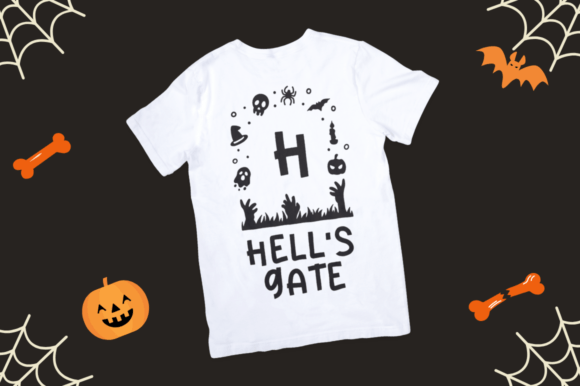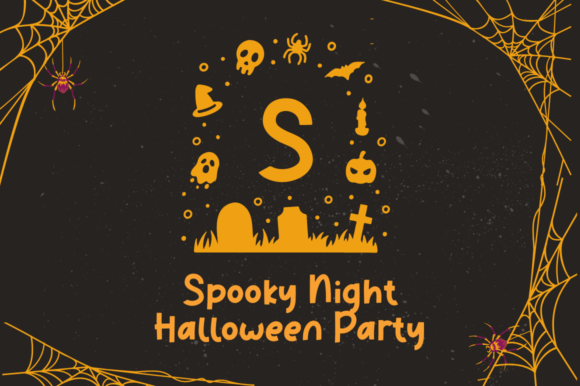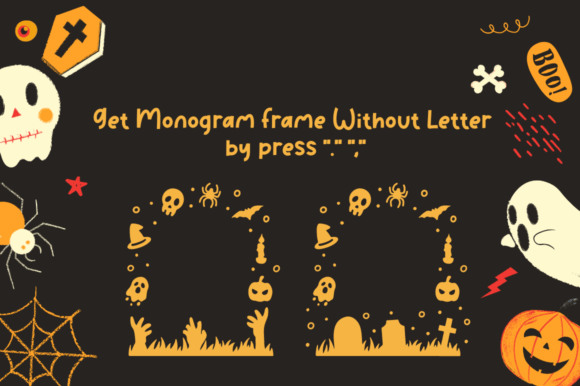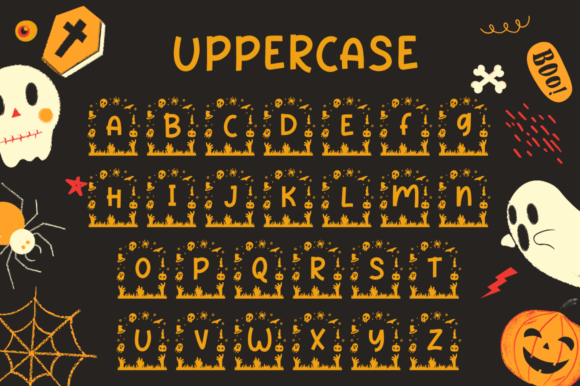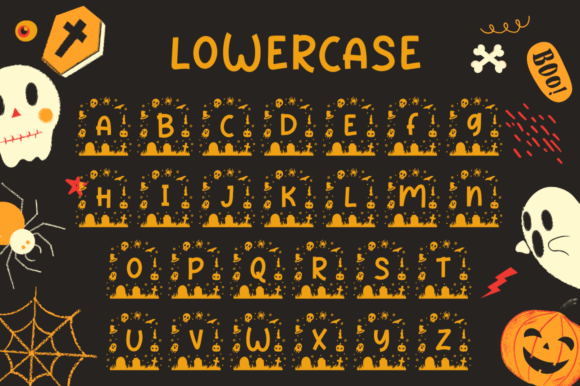
Haka Halloween Monogram Font: A Spooky and Scary Decorative Font for Your Halloween Projects
Are you looking for a font that will add a spooky touch to your Halloween-related projects? Look no further than the Haka Halloween Monogram Font. This decorative font is perfect for designers and crafters who want to create eye-catching and eerie designs for the spookiest time of the year.
What is Haka Halloween Monogram Font?
Haka Halloween Monogram Font is a unique and creative font that features spooky and scary monogram letters. These whimsical letters are designed to add a touch of Halloween magic to your projects, making them perfect for a variety of applications, including t-shirts, posters, party invitations, mugs, and more.
Key Features of Haka Halloween Monogram Font
- Spooky and Scary Design: The Haka Halloween Monogram Font features a spooky and scary design that is perfect for Halloween-related projects.
- Whimsical Monogram Letters: The font includes a range of whimsical monogram letters that are sure to add a touch of Halloween magic to your designs.
- Versatile: The font is versatile and can be used for a variety of applications, including t-shirts, posters, party invitations, mugs, and more.
Uses for Haka Halloween Monogram Font
The Haka Halloween Monogram Font is perfect for a variety of Halloween-related projects, including:
- T-Shirts: Create spooky and scary t-shirts for Halloween using the Haka Halloween Monogram Font.
- Posters: Design eye-catching posters for Halloween parties or events using the font.
- Party Invitations: Create spooky and scary party invitations using the Haka Halloween Monogram Font.
- Mugs: Design Halloween-themed mugs using the font.
- and More: The font can be used for a variety of other Halloween-related projects, including stickers, signs, and more.
Why Choose Haka Halloween Monogram Font?
There are many reasons why you should choose the Haka Halloween Monogram Font for your Halloween-related projects. Here are just a few:
- Unique Design: The font features a unique and creative design that is sure to stand out from the crowd.
- High-Quality: The font is high-quality and is designed to produce crisp and clear results.
Tips for Using Haka Halloween Monogram Font
Here are a few tips for using the Haka Halloween Monogram Font:
- Experiment with Different Colors: Experiment with different colors to find the perfect combination for your design.
- Use with Other Fonts: Use the Haka Halloween Monogram Font with other fonts to create a unique and eye-catching design.
- Pay Attention to Size: Pay attention to the size of the font to ensure that it is legible and easy to read.
The Haka Halloween Monogram Font is a spooky and scary decorative font that is perfect for all your Halloween-related projects. With its unique and creative design, high-quality, and ease of use, this font is a great choice for designers and crafters who want to create eye-catching and eerie designs for the spookiest time of the year.